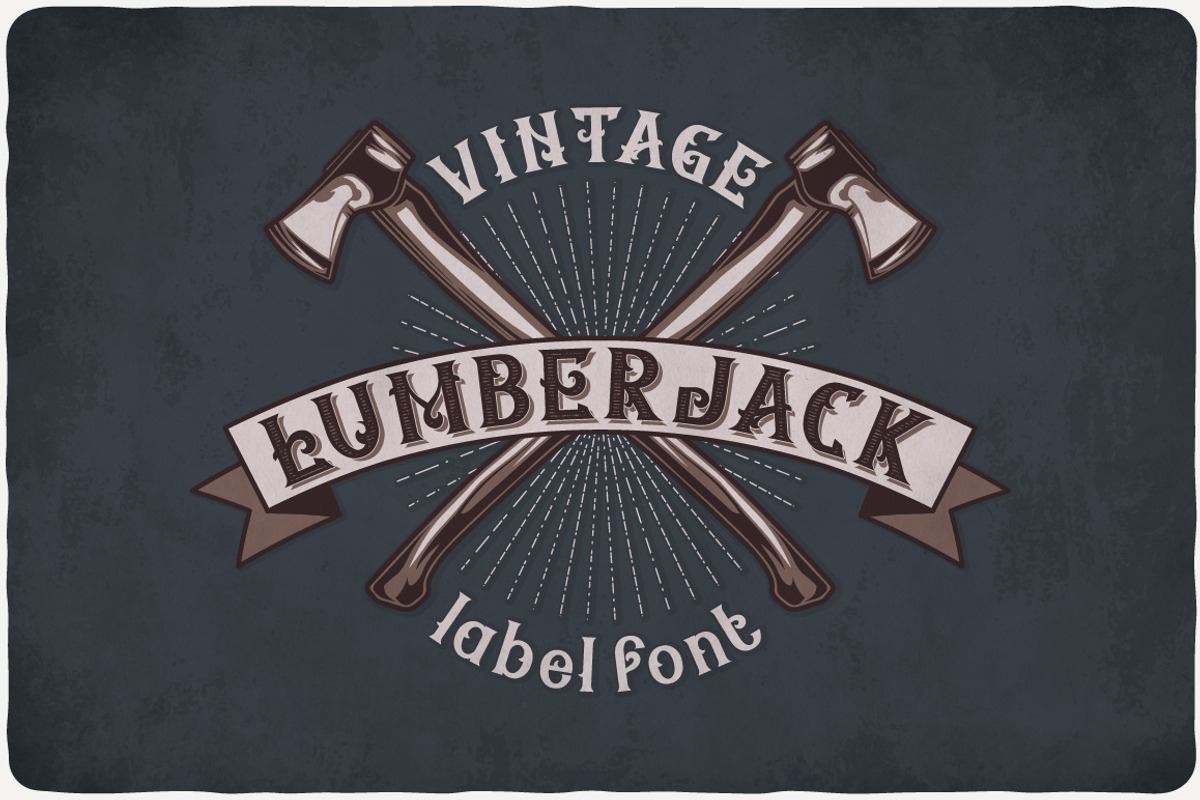
Lumberjack Typeface Free Download is a rugged and versatile typeface inspired by vintage woodcut prints and outdoor adventure branding. With strong serifs, bold structure, and a handcrafted feel, this font is perfect for logos, apparel design, badges, product packaging, and signage that needs a sturdy, rustic character.
Designed for durability and visual impact, Lumberjack blends traditional craftsmanship with modern readability. Whether you're working on branding for a coffee roastery, a camping gear line, or a heritage-inspired publication, this typeface adds authenticity and masculine charm to your design.
The typeface often comes in multiple styles—regular, rough, inline, and shadow—giving designers creative flexibility and layering options. It includes uppercase letters, numbers, punctuation, and multilingual support, making it ready for both digital and print use.